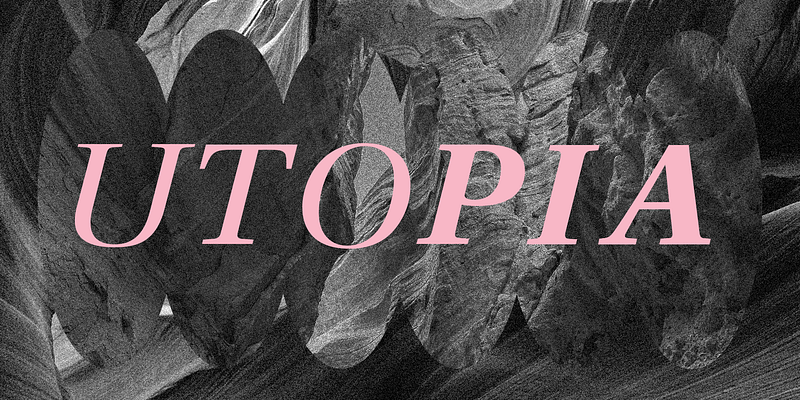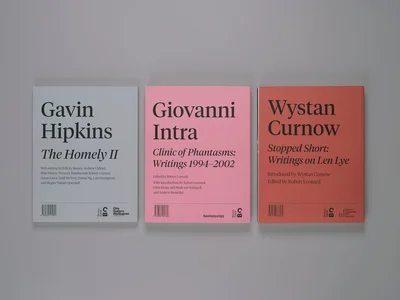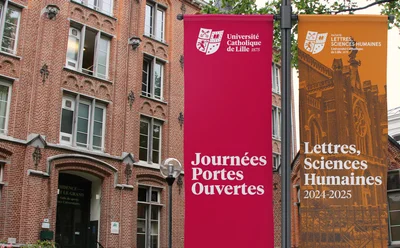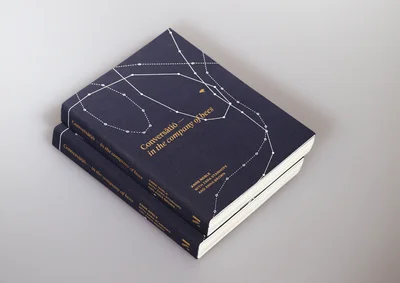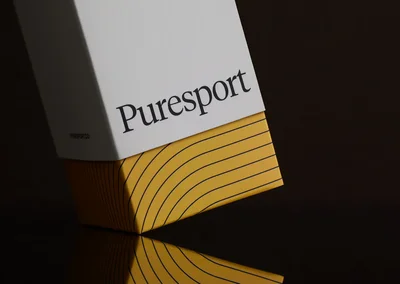
Tiempos vs Utopia
Tiempos and Utopia are both serif typefaces sharing a transitional foundation. The two share 72% design similarity overall. Compare which suits your Editorial project.
Where You'll See These Fonts
Tiempos
- News and magazine editorial layouts
- Long-form journalism platforms
- Literary and cultural publications
- Premium brand identity systems
- Corporate annual reports
Recommended: Tiempos
- editorial design character
- Suited for News and Magazines
- From Klim Type Foundry
Consider: Utopia
- Suited for Books and Academic